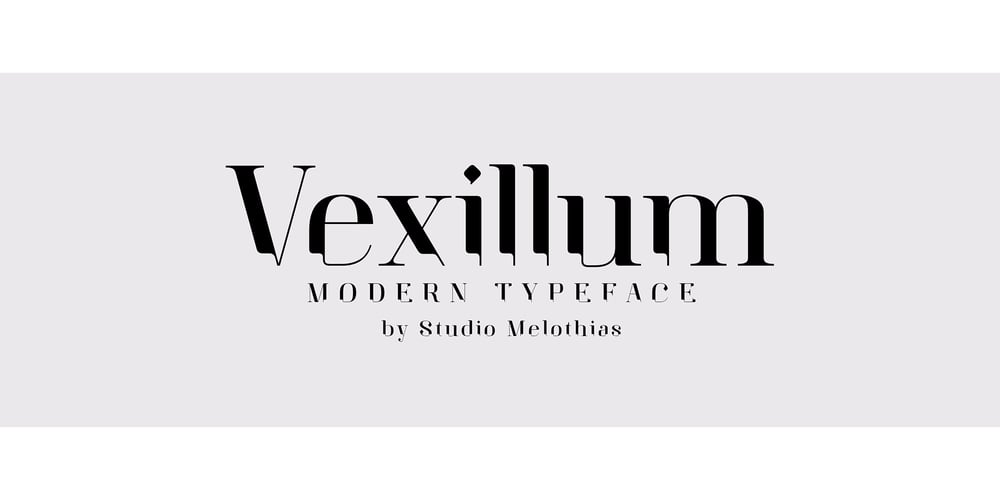
Vexillum Font Family was designed by Mohsen Salehi and published by Melothias. Vexillum contains 7 styles and family package options. Vexillum is a new and modern look at a classical serif font and inspired by a flag-like object used as a military standard by units in the Ancient Roman army and typography arabic-persian. The shapes of the letters and perfectly balanced high-contrast makes each sign look elegant, sophisticated and eye-catching.Vexillum also can be used in logos and blog posts or independently in combination with text for initials or headlines.